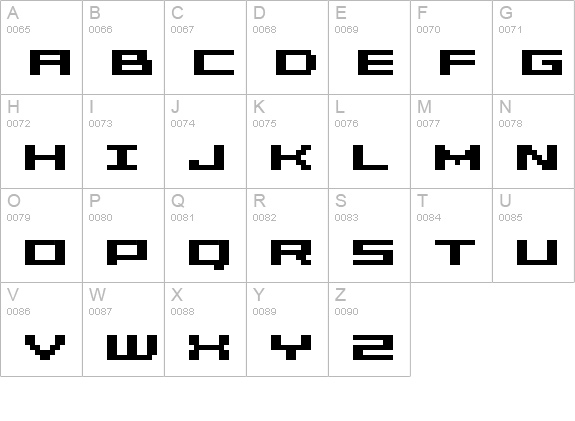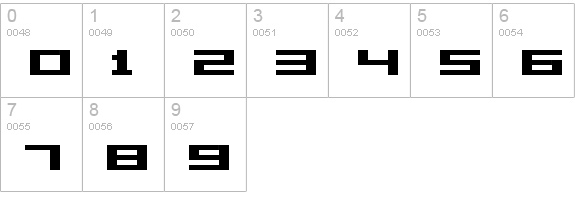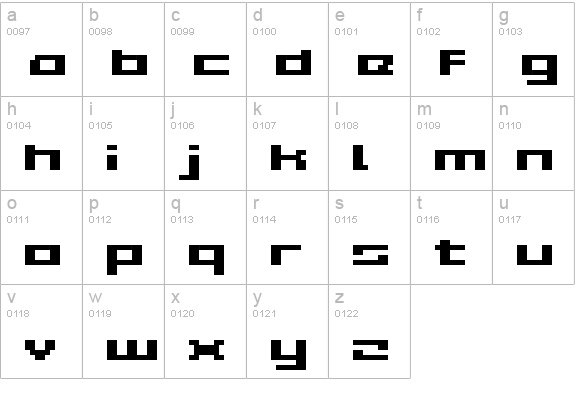
Grixel Acme 5 Wide Bold Xtnd is a strong, high-contrast, extended-width variant in the Grixel typeface family \xE2\x80\x94 well suited to headlines, attention-grabbing titles, and strong calls-to-action.
Grixel Acme 5 Wide Bold Xtnd font is a striking and versatile typeface that exudes a sense of modernity and sophistication. This bold and extended version of the Grixel Acme 5 Wide font is perfect for making a bold statement in your design projects. With its clean lines and strong presence, this font is sure to capture attention and leave a lasting impression. What makes Grixel Acme 5 Wide Bold Xtnd font even more appealing is that it is available for free download at FontsMarket.com. Whether you're working on a personal project or a professional design, this font is a fantastic choice for adding a touch of style and flair. Don't miss out on the opportunity to enhance your creations with this eye-catching font that is both bold and modern. Download Grixel Acme 5 Wide Bold Xtnd font today and take your designs to the next level!